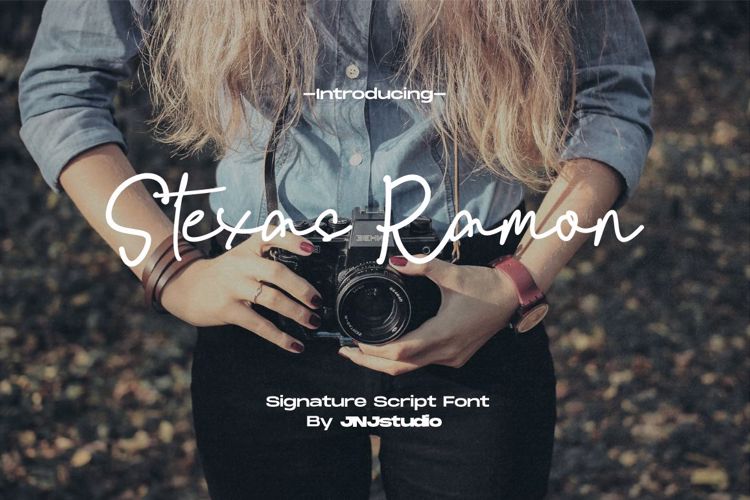
Stexas Ramon Font
About Stexas Ramon Font
introducing "Stexas Ramon" Signature Font is an elegant, handwritten typeface that captures the fluidity and charm of a personal signature. With its smooth strokes and natural flow, this font brings a touch of sophistication and authenticity to your designs. Ideal for branding, logos, invitations, and personal projects, Stexas Ramon Signature Font adds a distinctive, stylish flair. Its subtle variations in thickness mimic the real handwriting process, making each letter unique. Perfect for adding a personal touch, this font stands out in both formal and creative contexts.